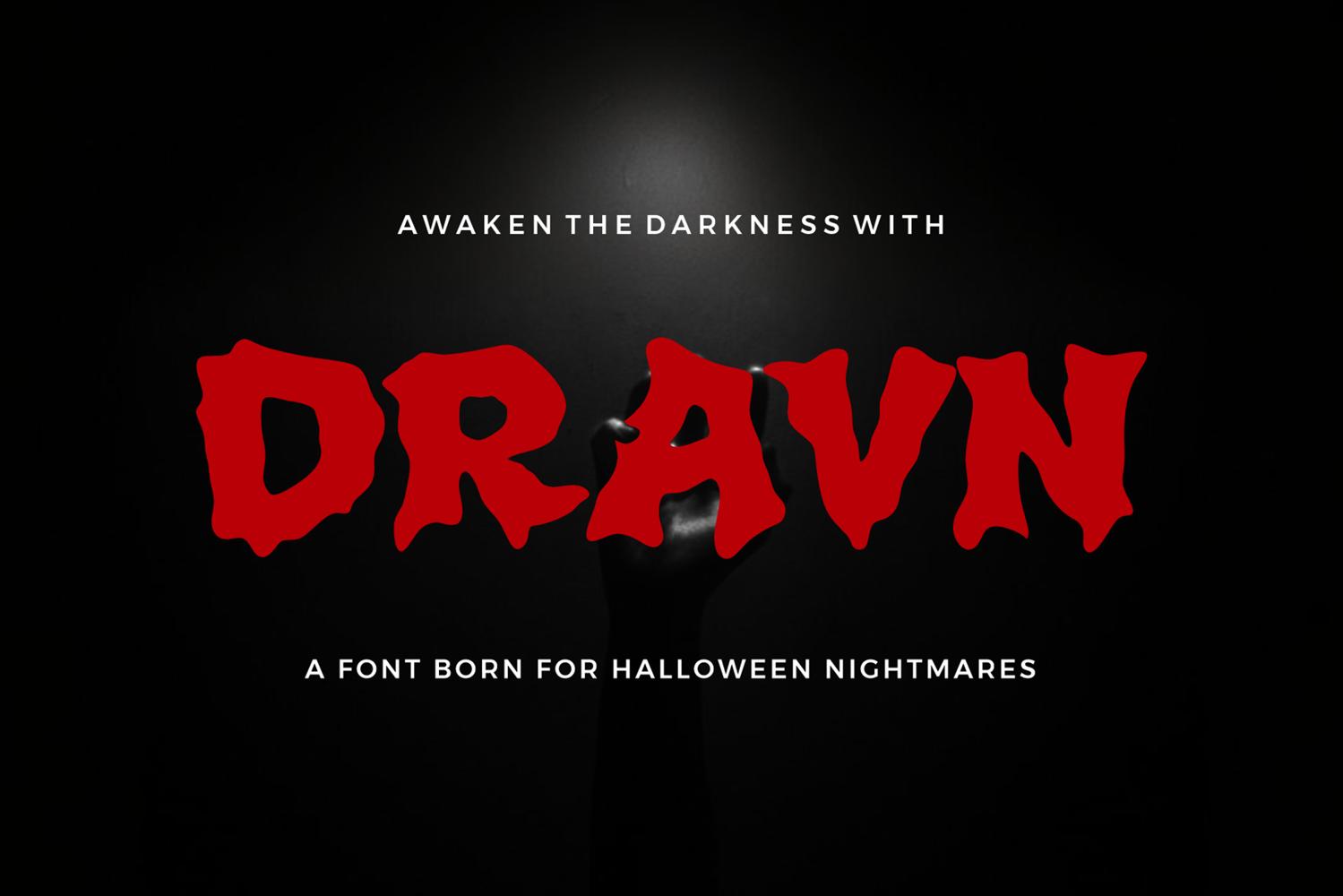
Distort Lines | Brush Style Webfont
Dravn-Regular
DRAVN is a horror-themed display font designed to give your projects a chilling edge. Inspired by classic Halloween and nightmare aesthetics, it features distorted, monstrous characters that look like they crawled straight out of a horror film. Whether used for print or digital designs, DRAVN brings a gruesome, handmade quality that demands attention. Ideal for posters, t-shirts, social media, book covers, and more. DRAVN includes uppercase, lowercase, numbers, punctuation, and full multilingual support. Delivered in OTF and TTF formats.